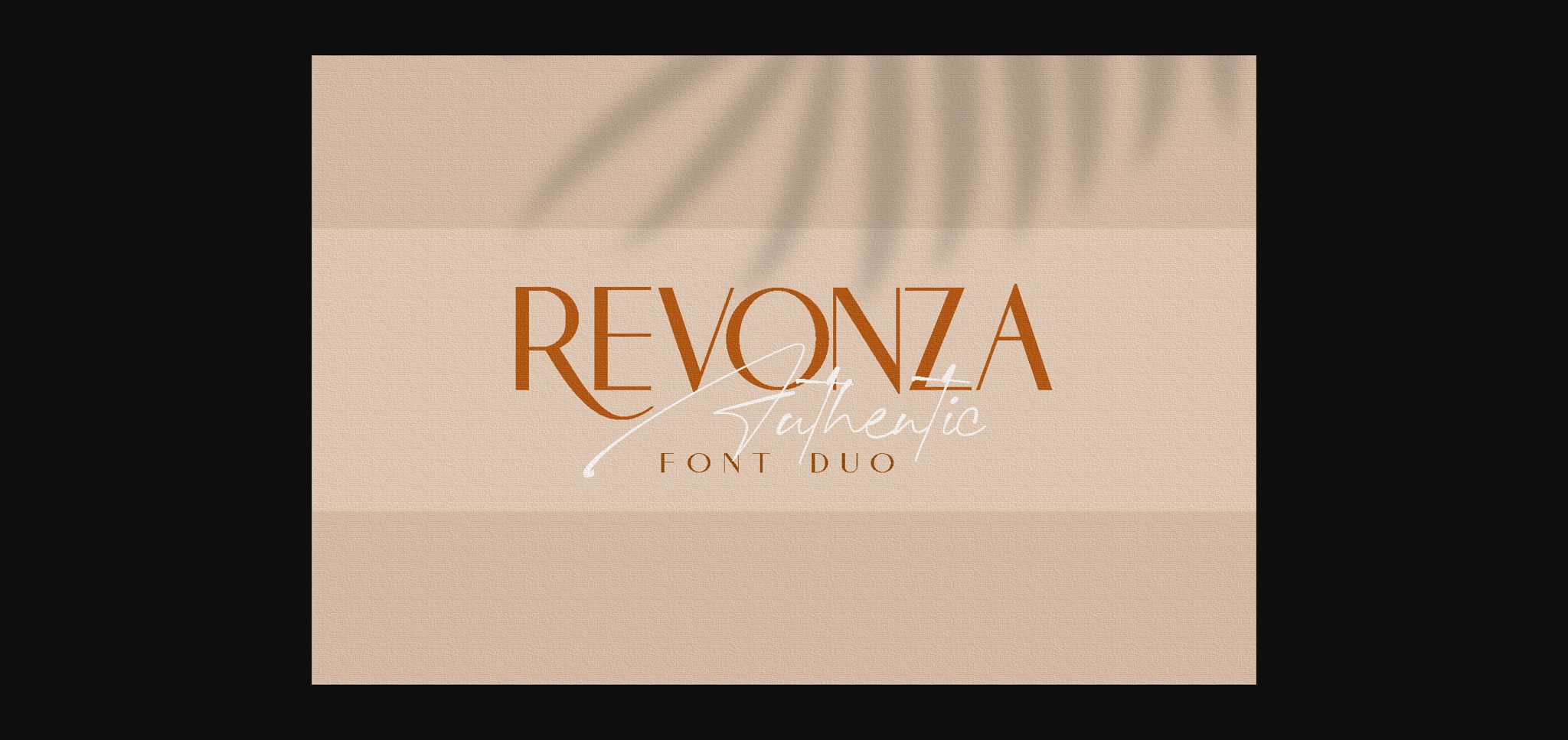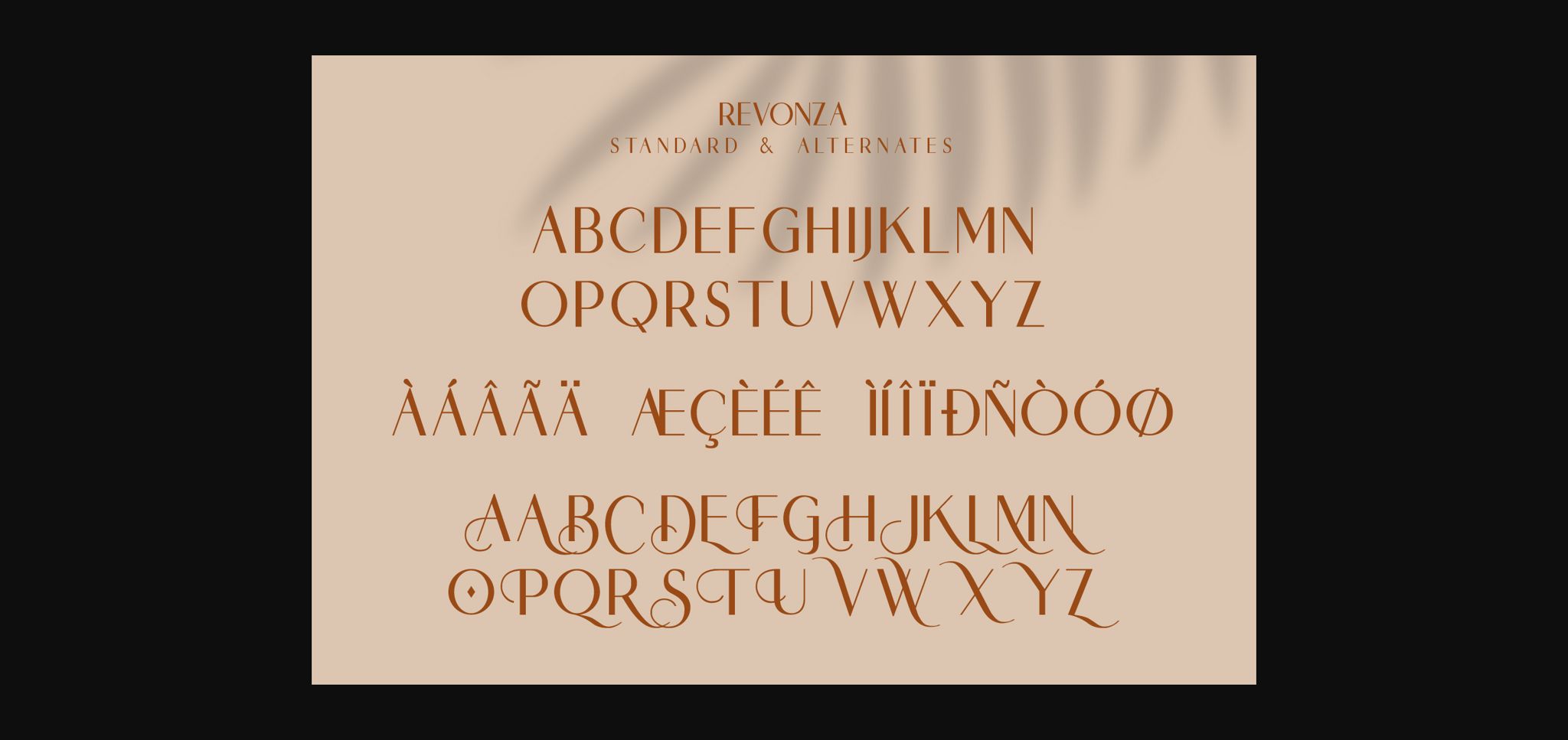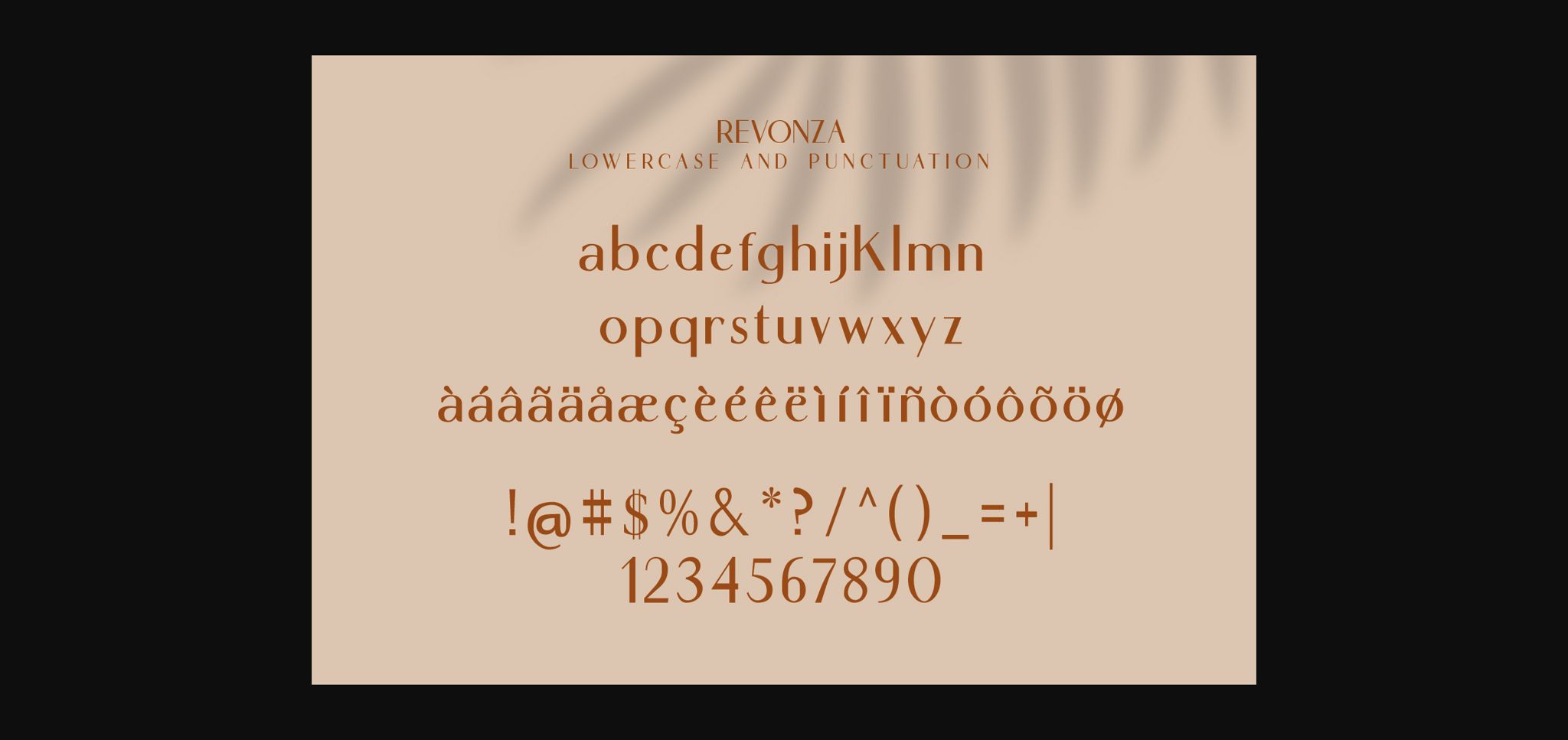
About Revonza Authentic Font
Revonza Authentic is a spectacular duo font (sans serif and script). Incredibly powerful and beautiful, this font fits a wide pool of designs, elevating them to the highest levels. Add this font to your favorite creative ideas and notice how it makes them come alive!
REVONZA includes a complete characters (Uppercase, lowercase, numeral, punctuation and alternates).
REVONZA Sans Regular – high contrast sans font containing uppercase, lowercase characters, numerals, punctuation and alternates. Creates a perfect pairing contrast with REVONZA Script fonts
REVONZA Sans Italic – high contrast sans font containing uppercase, lowercase characters, numerals, punctuation and alternates.
REVONZA Script – An elegant script font Contains upper & lowercase characters, numerals and a large range of punctuation
REVONZA includes a complete characters (Uppercase, lowercase, numeral, punctuation and alternates).
REVONZA Sans Regular – high contrast sans font containing uppercase, lowercase characters, numerals, punctuation and alternates. Creates a perfect pairing contrast with REVONZA Script fonts
REVONZA Sans Italic – high contrast sans font containing uppercase, lowercase characters, numerals, punctuation and alternates.
REVONZA Script – An elegant script font Contains upper & lowercase characters, numerals and a large range of punctuation